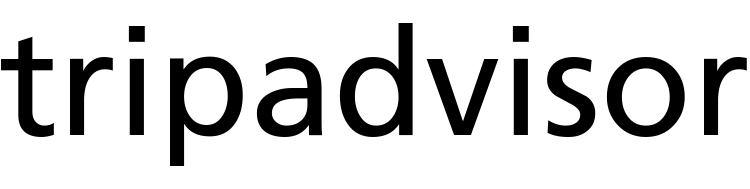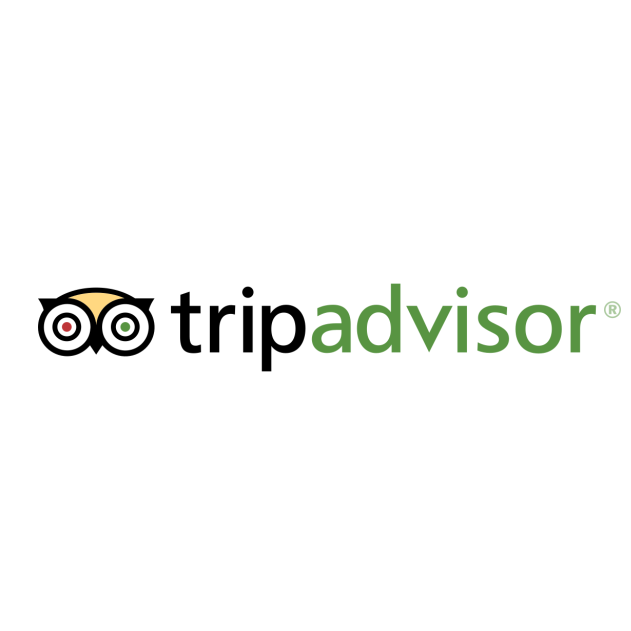
TripAdvisor Logo Font
Fonts in UseTripAdvisor is a popular travel website that provides reviews and information on hotels, restaurants, and attractions around the world. It allows users to book travel accommodations and plan trips based on the experiences and recommendations of other travelers.
The travel website's logo combines an owl and binoculars symbolizing their travel expertise. The wordmark seems to have been inspired by Adrian Frutiger's humanist sans-serif Frutiger font with slight modifications.